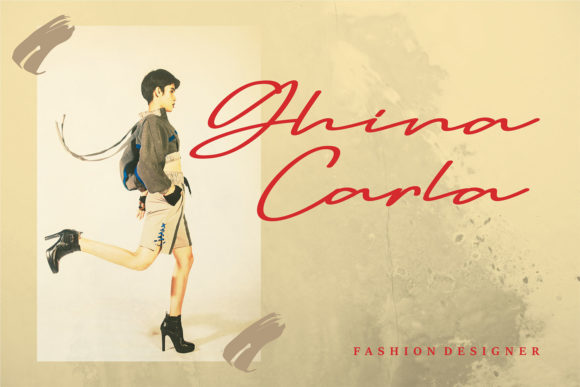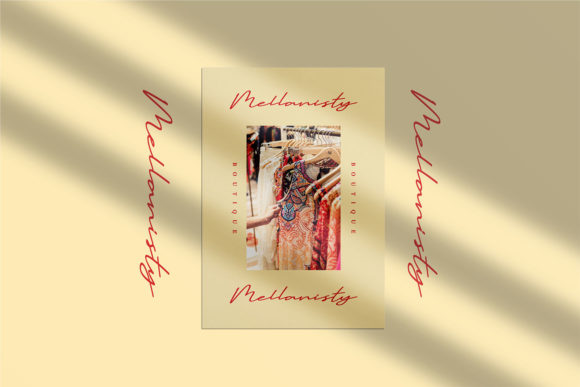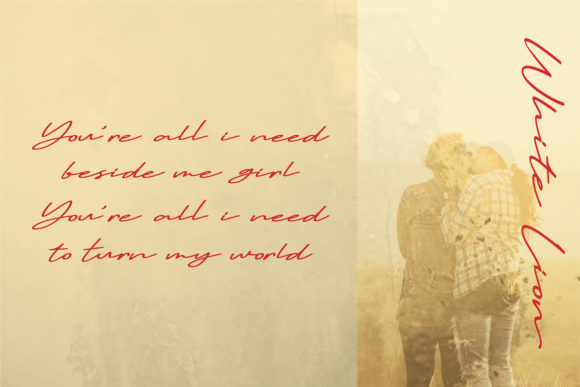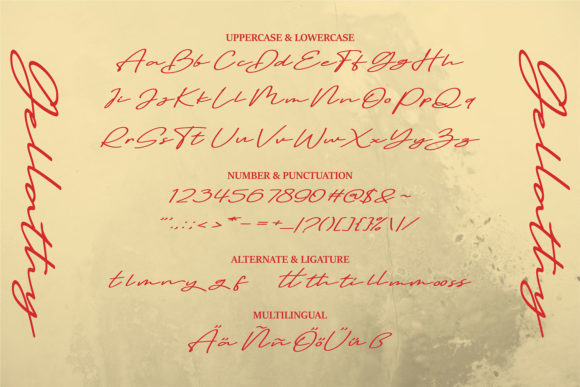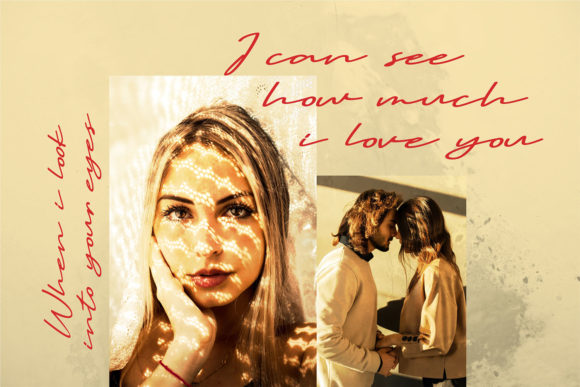
Gellathy Font
About Gellathy Font
Gellathy is an elegant and flowing script font. Stylish and unique, this font will elevate each of your designs to the highest level!